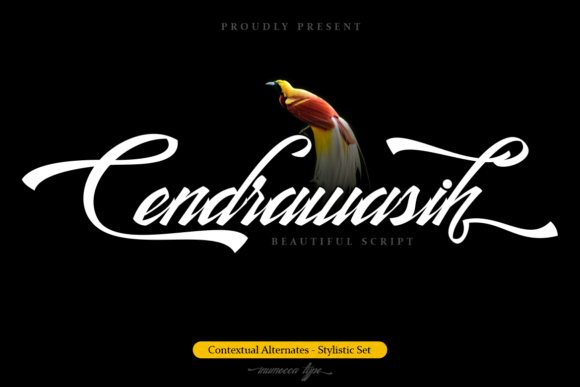
Cendrawasih Font: Elevate Your Designs with this Stunning Handwritten Font
In the world of typography, fonts play a crucial role in conveying messages, expressing emotions, and creating visually appealing designs. Among the numerous fonts available, Cendrawasih Font stands out for its unique, casual, and flowing handwritten style. In this article, we’ll explore the features, benefits, and uses of Cendrawasih Font, and why it’s a must-have for designers, artists, and creative enthusiasts.
What is Cendrawasih Font?
Cendrawasih Font is a beautifully crafted, handwritten font that exudes elegance, sophistication, and playfulness. Its flowing lines, curves, and swashes make it an incredibly versatile font suitable for a wide range of design projects. Whether you’re creating a logo, branding materials, social media graphics, or website content, Cendrawasih Font is sure to impress.
Key Benefits of Cendrawasih Font
- Unique and Eye-catching: Cendrawasih Font boasts a distinctive, hand-crafted style that sets it apart from other fonts. Its uniqueness makes it perfect for designers looking to create stunning, one-of-a-kind designs.
- Versatile: This font is incredibly versatile, making it suitable for various design projects, including logos, branding, packaging, and digital content.
- PUA Encoded: Cendrawasih Font is PUA (Private Use Area) encoded, which means you can easily access all glyphs and swashes, giving you maximum creative control.
- Easily Readable: Despite its artistic, handwritten nature, Cendrawasih Font remains highly readable, making it perfect for body text, headings, and titles.
Creative Uses of Cendrawasih Font
Cendrawasih Font’s versatility makes it suitable for a wide range of design applications. Here are some creative ways to use this stunning font:
- Logo Design: Create a memorable logo that stands out with Cendrawasih Font’s unique, handwritten style.
- Branding Materials: Use Cendrawasih Font to create cohesive branding materials, such as business cards, letterheads, and brochures.
- Social Media Graphics: Elevate your social media presence with eye-catching graphics, posts, and stories created with Cendrawasih Font.
- Website Content: Enhance your website’s visual appeal with Cendrawasih Font, perfect for headings, titles, and body text.
- Packaging Design: Add a touch of elegance and sophistication to your product packaging with Cendrawasih Font.
Design Tips for Using Cendrawasih Font
To get the most out of Cendrawasih Font, follow these design tips:
- Experiment with Swashes: Take advantage of Cendrawasih Font’s swashes to add flair and personality to your designs.
- Mix and Match: Combine Cendrawasih Font with other fonts to create visually appealing contrast and hierarchy.
- Adjust Font Size: Play with font sizes to create emphasis and add visual interest to your designs.
- Color Matters: Choose colors that complement Cendrawasih Font’s unique style and enhance your design’s overall aesthetic.
Cendrawasih Font is a stunning, handwritten font that offers a unique blend of elegance, sophistication, and playfulness. Its versatility, readability, and PUA encoding make it an excellent choice for designers, artists, and creative enthusiasts. With Cendrawasih Font, you can elevate your designs, create stunning visual content, and leave a lasting impression on your audience.